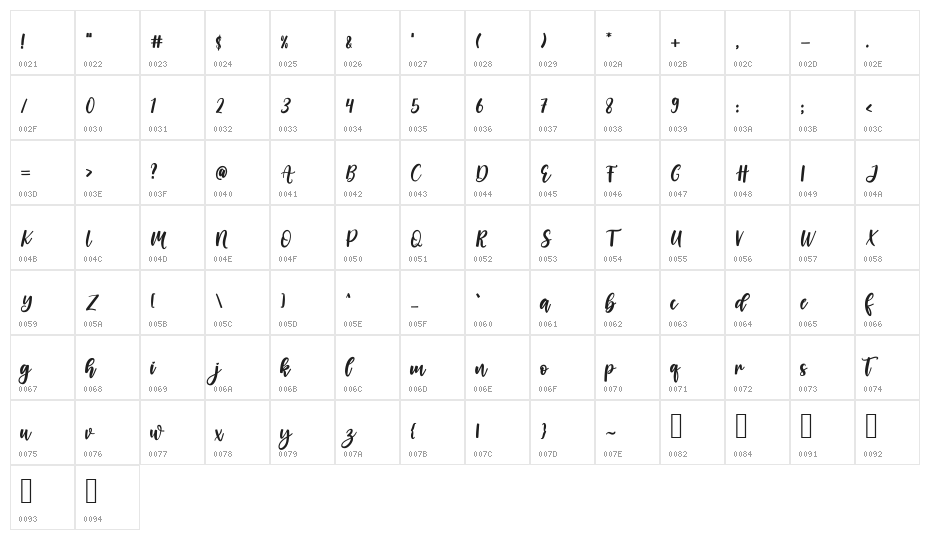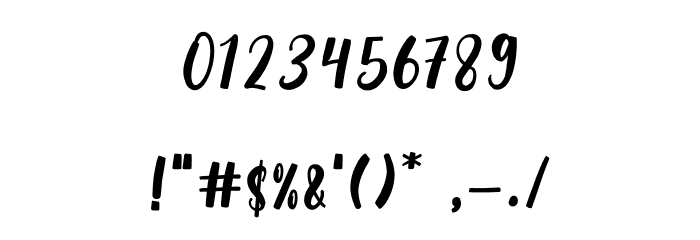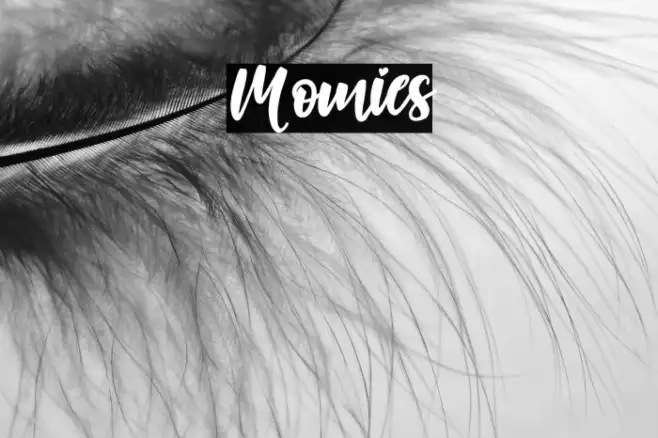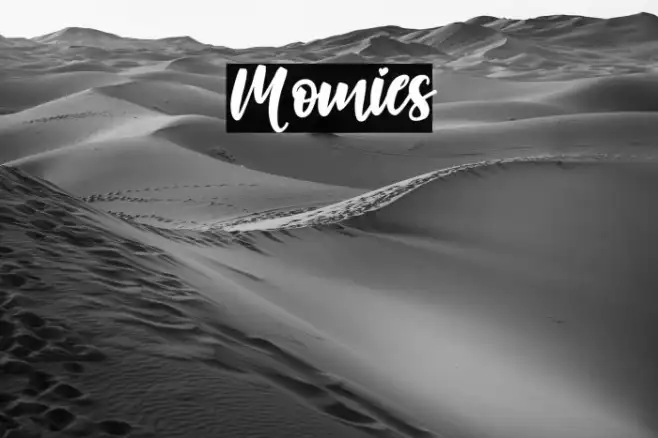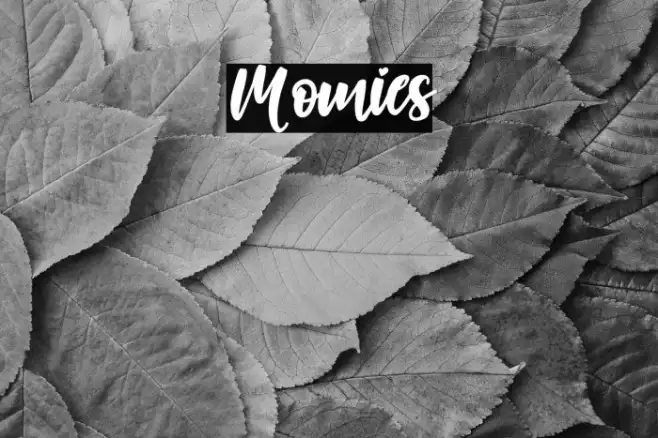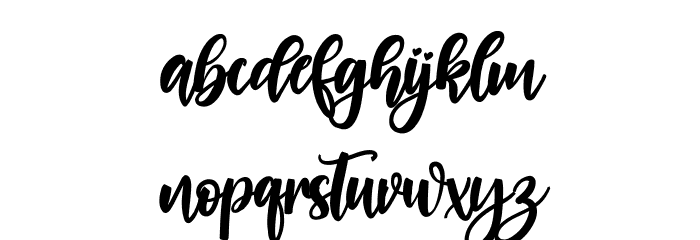
Momies Font
Momies Description
A playful, brush-style script font with fluid, connected strokes and a hand-lettered appearance. The characters feature varying stroke thickness, giving a dynamic and lively feel, while maintaining good legibility. Uppercase and lowercase letters are distinct, with some flourishes and loops, especially in the lowercase set.
| Overall Style | Decorative, Handwritten, Modern |
| Use Case | Logos, Headlines, Invitations, Posters |
| Proposed Projects | Greeting cards, invitations, branding, social media graphics, posters, and creative packaging. |